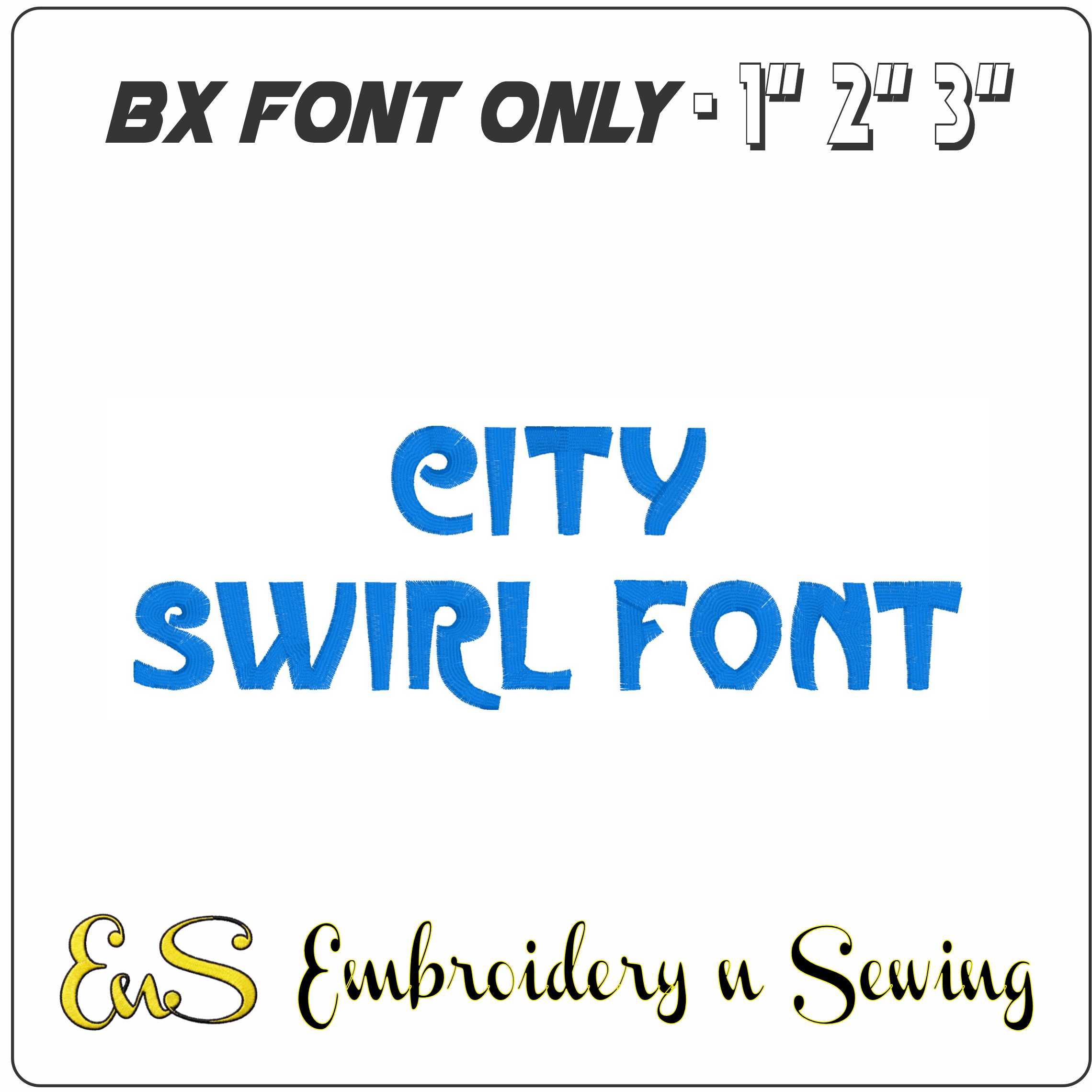
City Swirl Font
A playful swirl-filled embroidery font that gives names, initials and short phrases a decorative, upbeat finish.
Add playful lettering to personalised projects with City Swirl Font, a decorative uppercase embroidery alphabet stitched in bright blue with curled flourishes tucked into each letter. The sample layout shows the font clearly across two lines, so it suits makers who want custom wording to feel more styled than plain block text. It is a good fit for names, short quotes and bold monograms where you want the letters themselves to do the decorating.
Because the details sit inside the letterforms, this font stands out best on simple bases such as sweatshirt fronts, tote bags, cushion covers and children’s room accessories. The decorative swirls give short words plenty of personality without needing extra borders or motifs around them. With the design offered in smaller sizes, it is especially useful for compact placements where you still want a lively, embellished look.